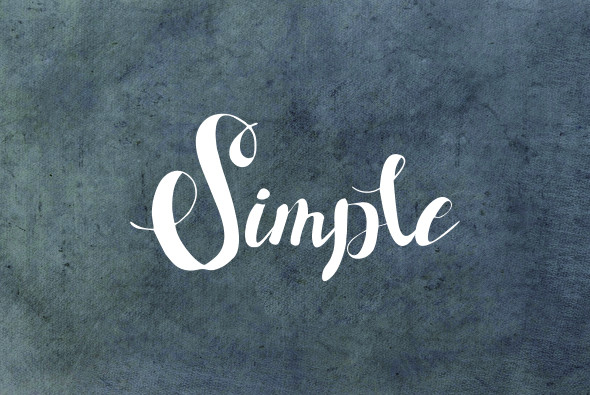
Gracias Script Font
This is a luxurious signature typeface. This is a handwritten script font with a Signature Style and classy style, this font is great for your creative projects. Introducing Gracias Font. Give your designs an authentic handcrafted feel. “Gracias Script” is perfectly suited to signature, stationery, logo, typography quotes, magazine or book cover, website header, clothing, branding, packaging design and more.